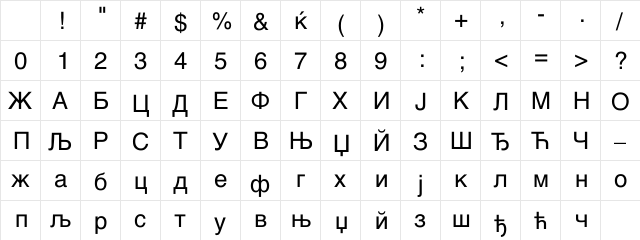
Complete CYSwissR Regular glyph index. Displaying only characters natively supported by CYSwissR Regular font.
CYSwissR is a composed and adaptable typeface that performs quietly and consistently across a wide range of design contexts.